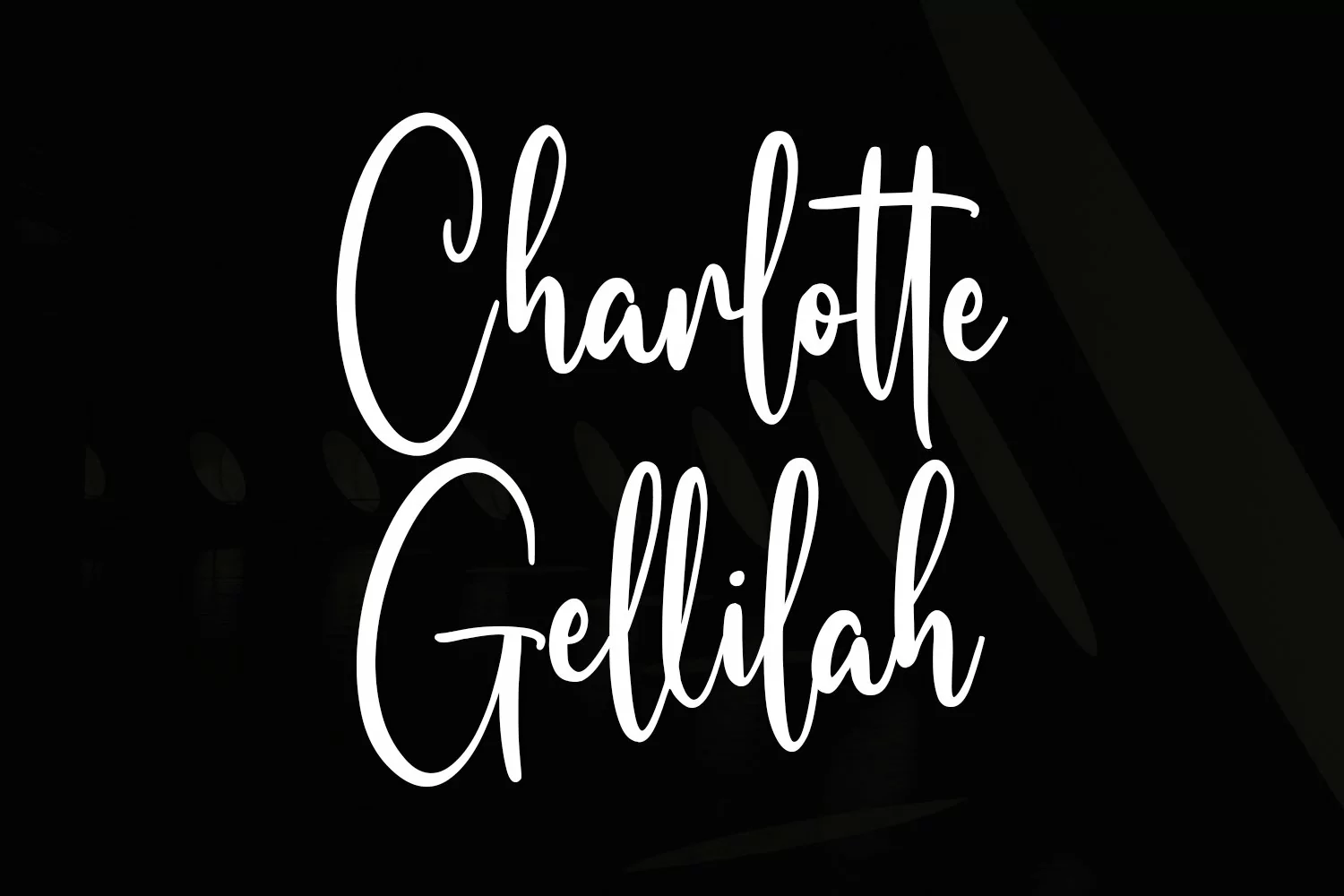
Rossa Emilobe is a fancy handwritten script font. With medium contrast stroke, fun character with a bit of ligatures and alternates. To give you an extra creative work. Rossa Emilobe font support multilingual more than 100+ language. This font is good for logo design, Social media, Movie Titles, Books Titles, a short text even a long text letter and good for your secondary text font with sans or serif. Make a stunning work with Rossa Emilobe font.
Rossa Emilobe